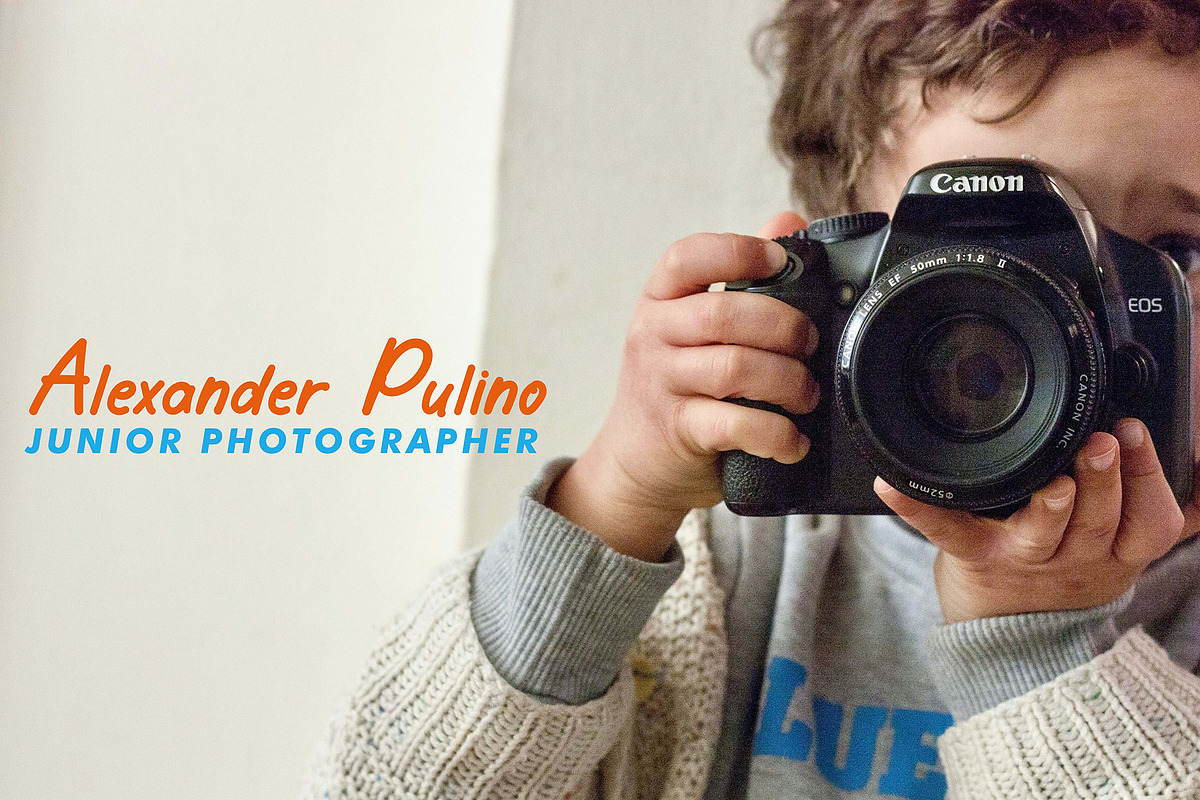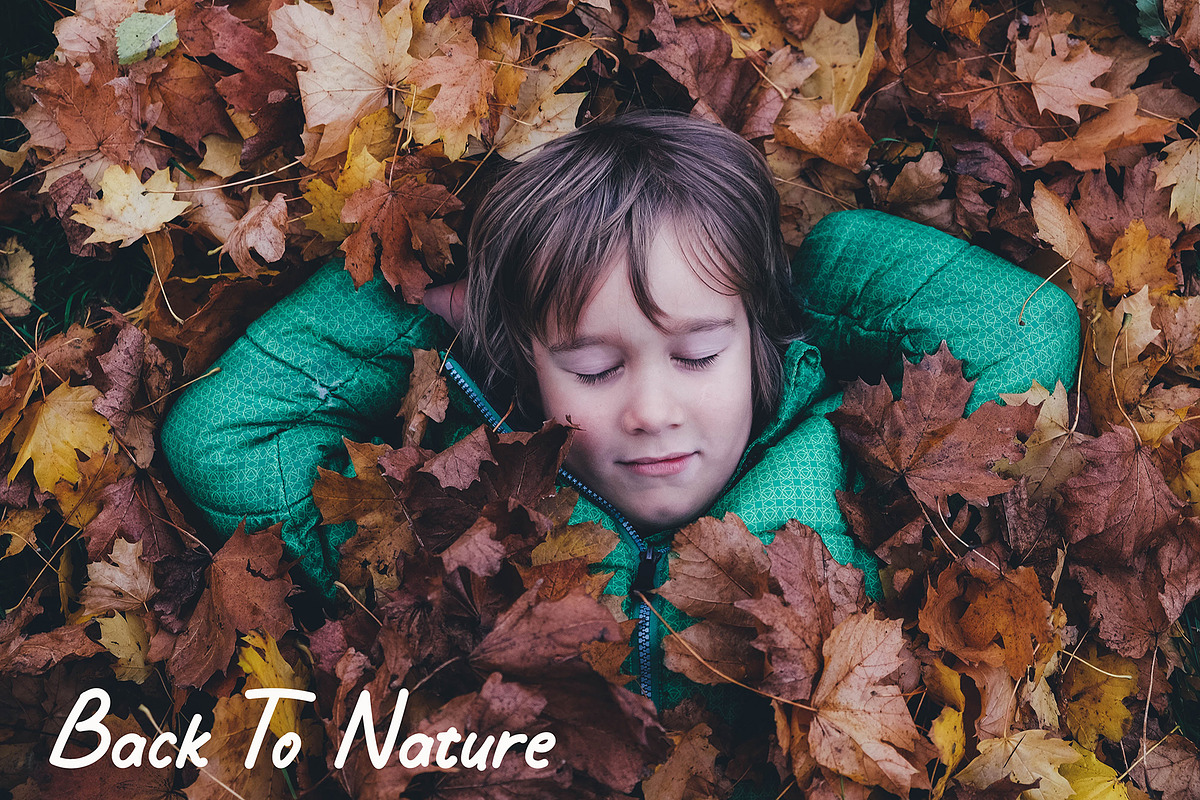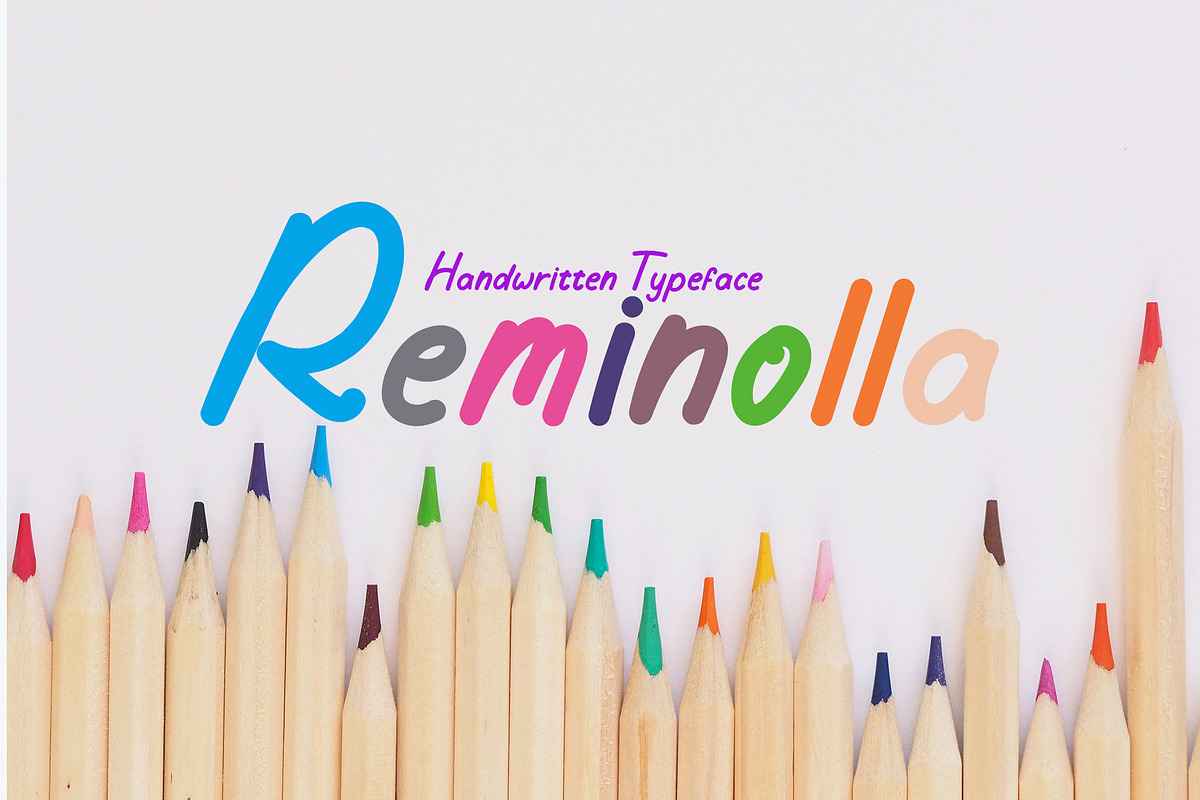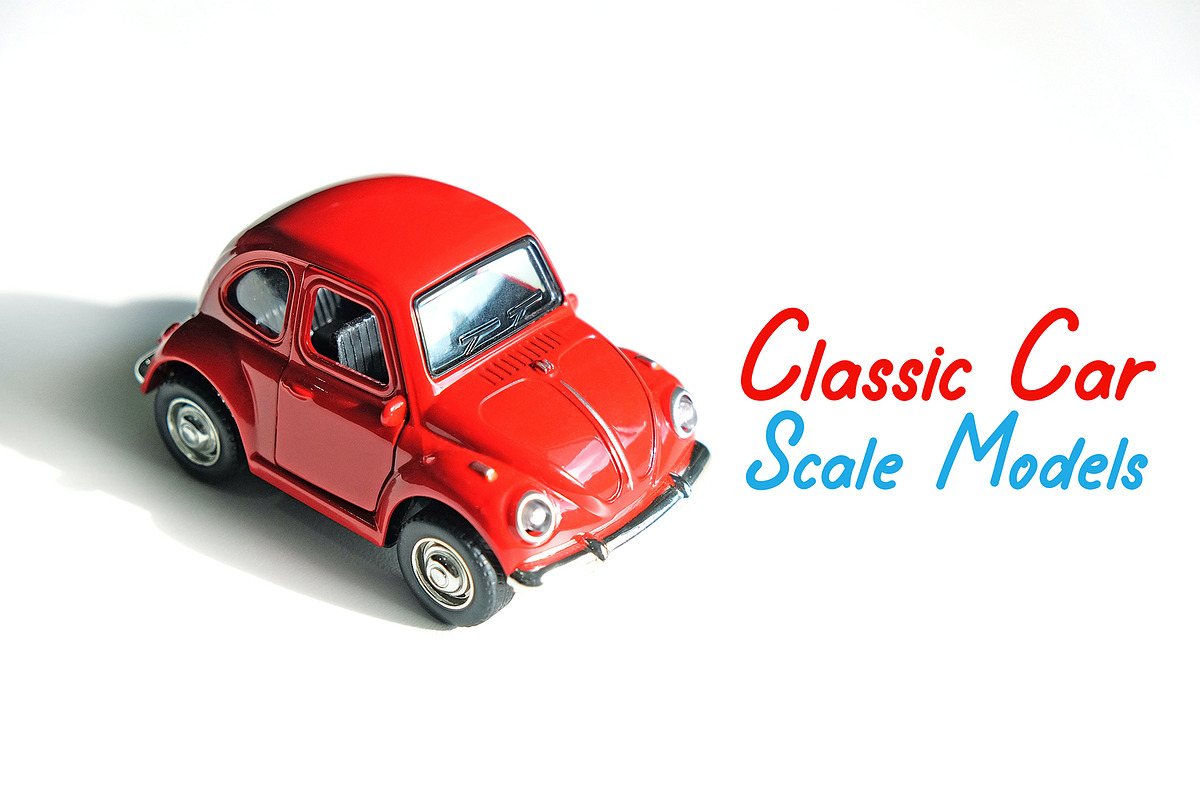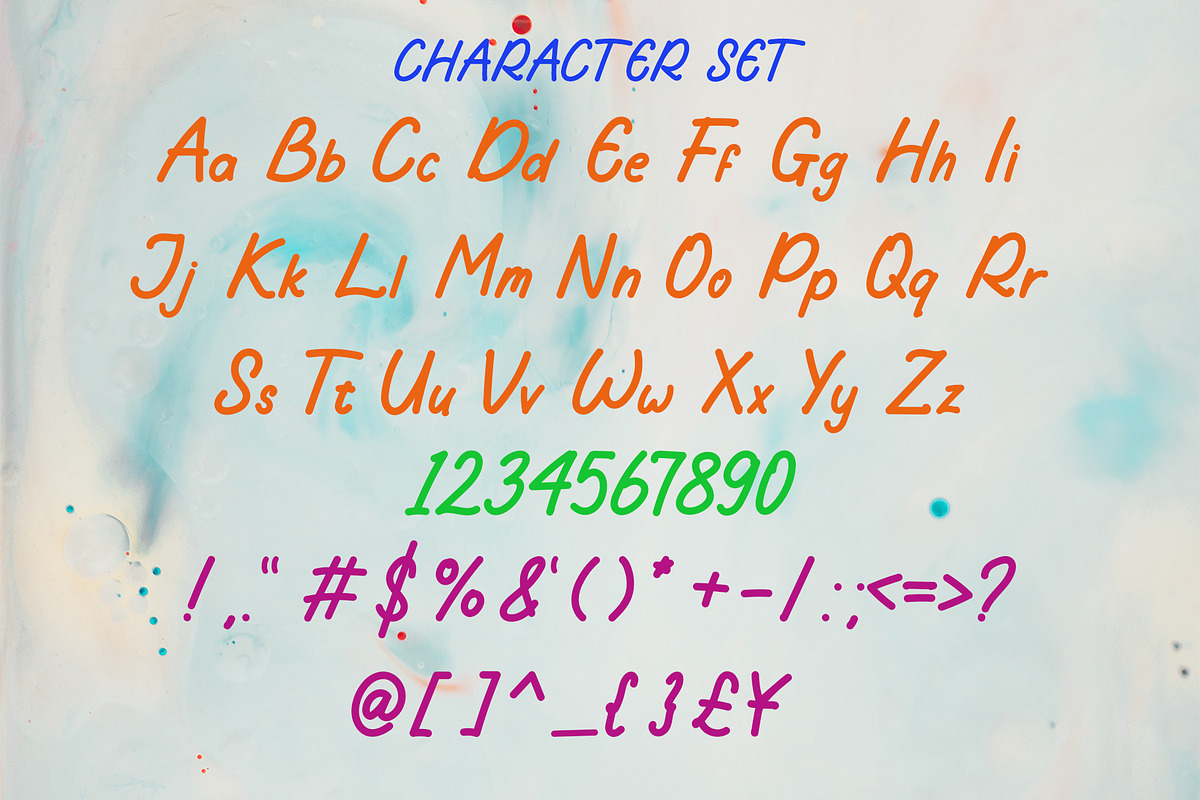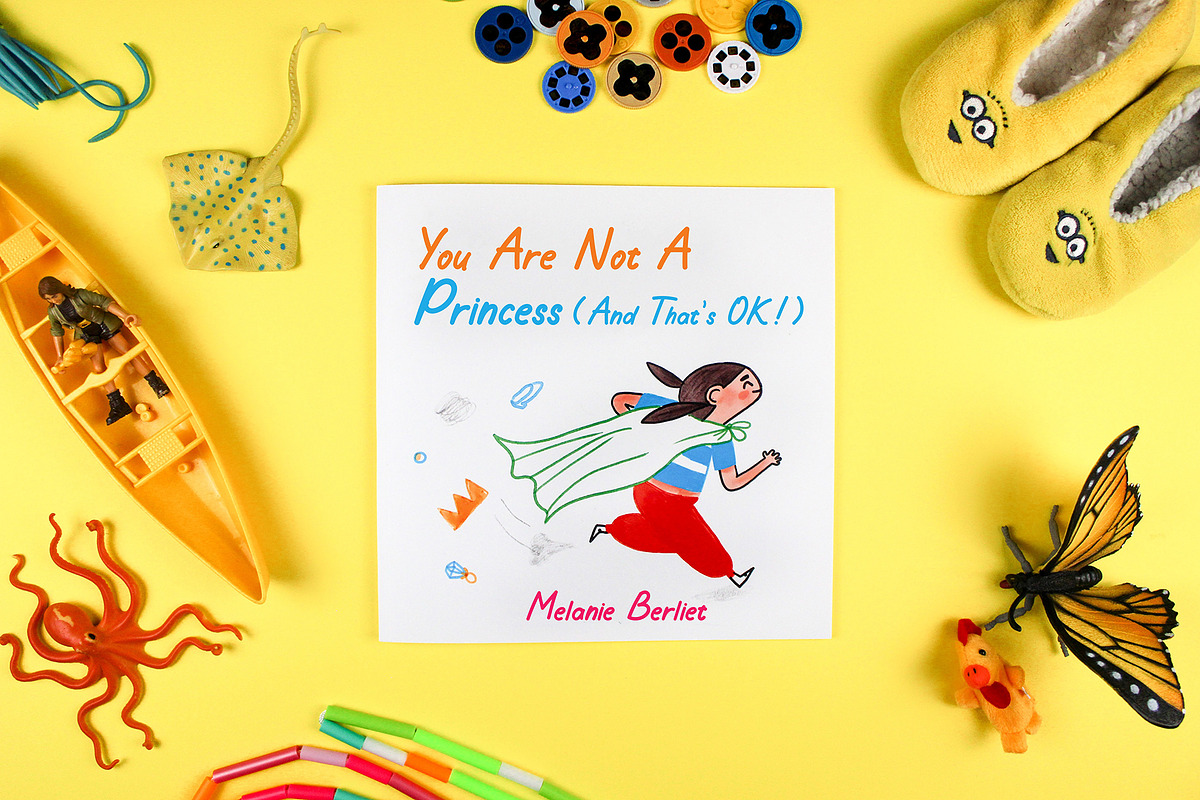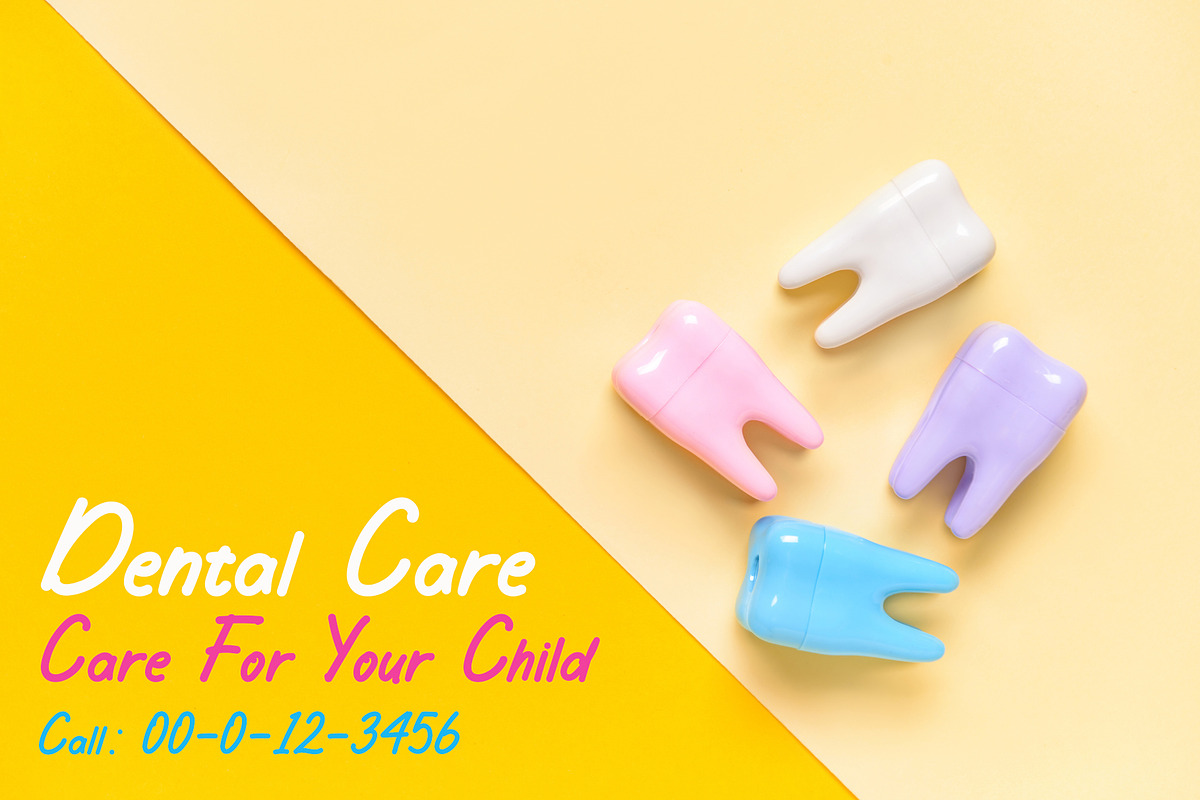
Reminolla
Introducing Reminolla Handwritten Typeface is a clean and bold natural handwritten that written casually and modern. Reminolla will inspire you to create something fun and memorable. It is perfect for headings, flyer, greeting cards, product packaging, book cover, printed quotes, logotype, apparel design, album covers, etc.